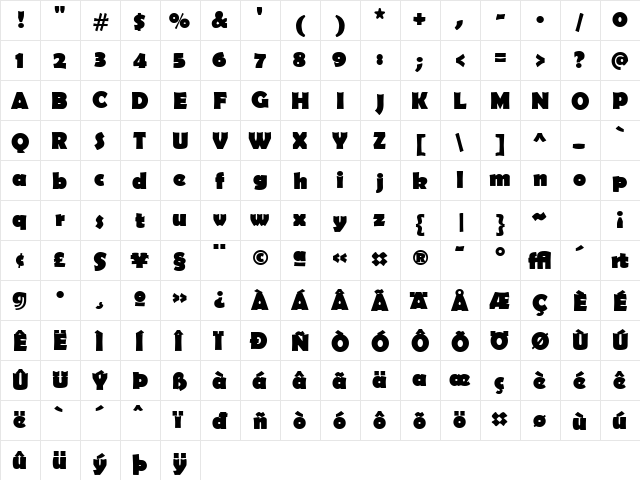
Berlinsans Bold Font Preview
Berlinsans Bold
Berlinsans Bold Font Details
Design Context for Berlinsans Typeface
Berlinsans offers clean, dependable letterforms without strong stylistic allegiance, making it a practical choice for designers who need flexibility. The heavy weight commands attention and anchors typographic hierarchies.